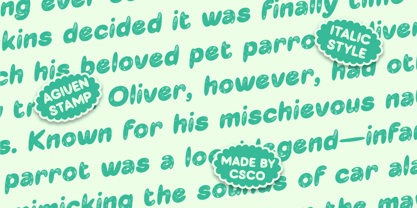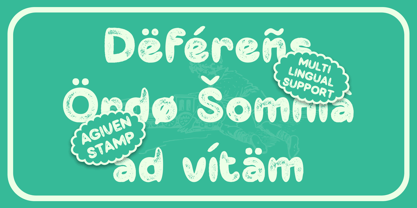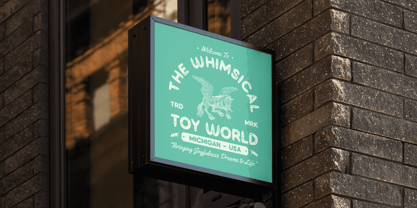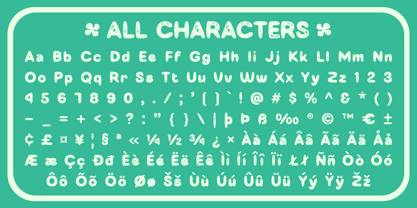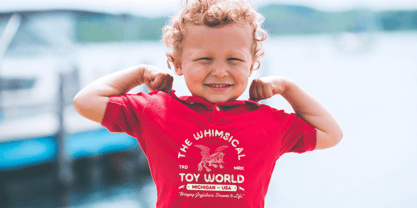
Agiven Stamp
The Agiven Stamp Font Family was designed by Trio Nazzar Saputra, Wahyu Hadi Yuana and published by Craft Supply Co. Agiven Stamp contains 2 styles and family package options. More about this family
Agiven Stamp Font: Playful Bubbles with Vintage Charm
Bubbly Rounded Display Font with Whimsical Appeal
Agiven Stamp is a delightful display font featuring bubbly, rounded letterforms that exude a cute and playful vibe. Its soft, rounded shapes create a cheerful and approachable look, perfect for capturing attention and conveying a sense of fun. The font’s playful nature makes it an excellent choice for designs that aim to engage and amuse audiences with its endearing aesthetic.
Textured Stamp Effect for a Vintage Touch
Adding to its charm, Agiven Stamp incorporates a stamp effect that introduces a textured, vintage quality to the font. This rugged finish enhances the font’s whimsical appeal, giving it a distinctive retro flair that complements its bubbly design. The textured appearance adds depth and character, making the font stand out in various creative contexts while evoking a nostalgic feel.
Versatile for Cheerful and Engaging Designs
Ideal for a range of applications, Agiven Stamp shines in playful branding, engaging posters, and lively promotional materials. Whether you’re designing event flyers, social media graphics, or product packaging, this font brings a unique and memorable presence to your projects. Its blend of cheerful, rounded shapes and vintage texture ensures that your designs will capture attention and leave a lasting impression with their fun and nostalgic touch.